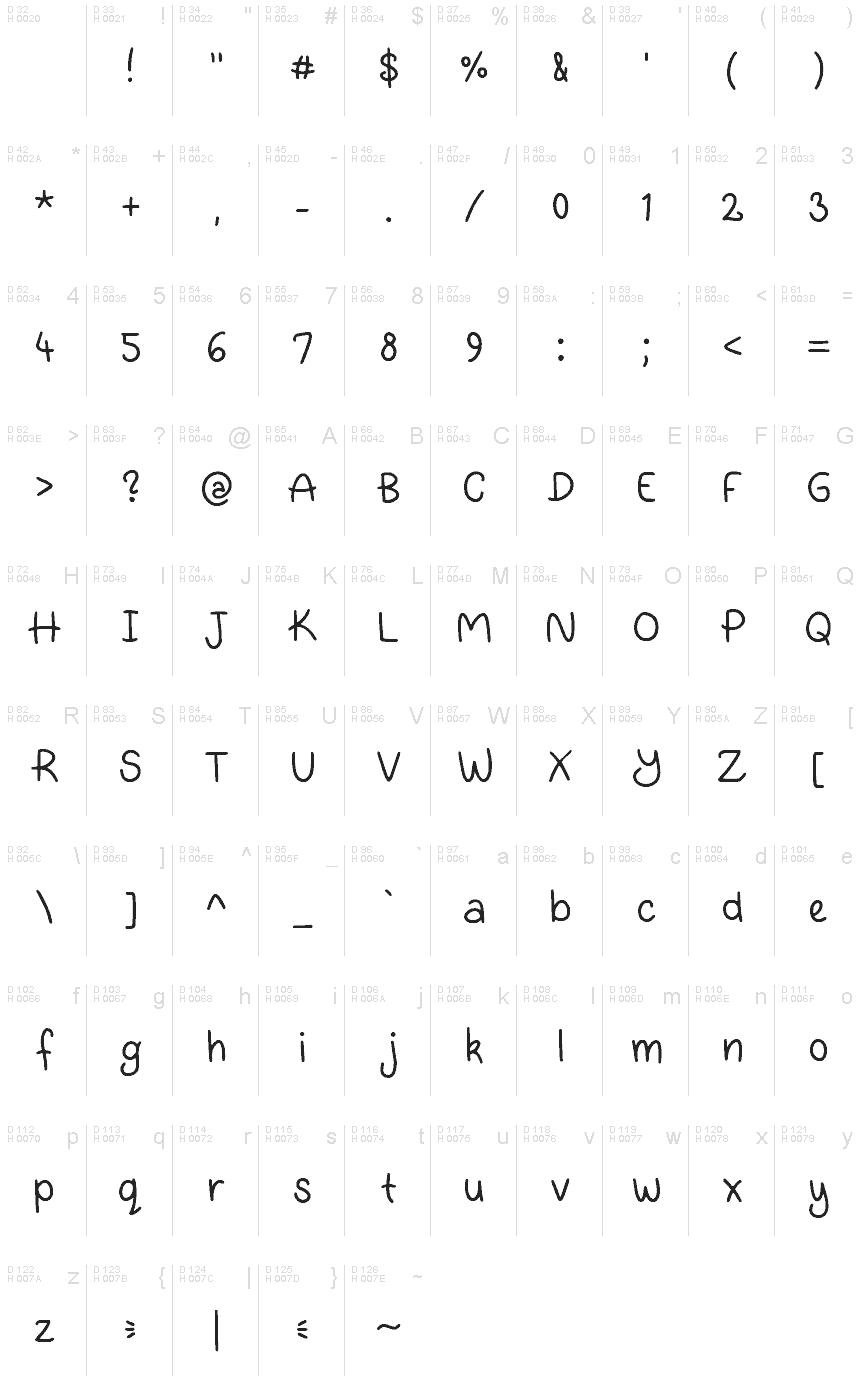
Hollies Oneshot Regular
Hollies Oneshot is a charming casual handwritten font by HollieInk. The collection of letters has an approachable and friendly style which makes the typeface perfect for student audiences and relaxed purposes. Its informal design as a whole also gives it authenticity in appearance that will make users ‘believe’ the presented written content.
There’s not much this font can’t do. It’s suitable for social media posts, magazines, posters, ads, banners, t-shirts, comics, books and so much more! It also fits headers on landing pages of websites or apps too. A true all-around free handwritten font for both digital projects or printed marketing collateral!